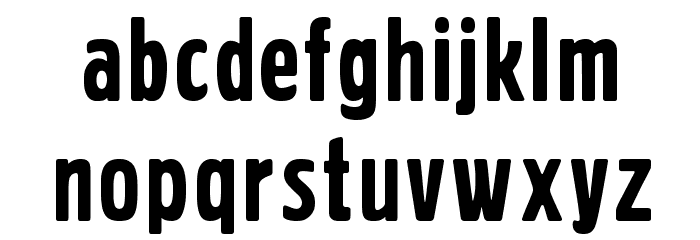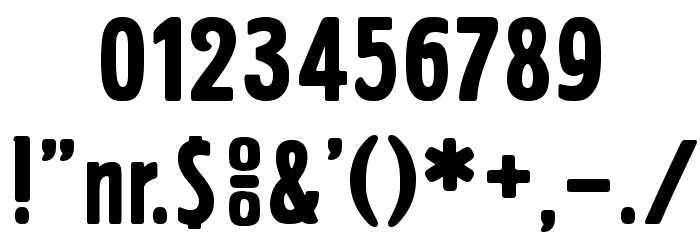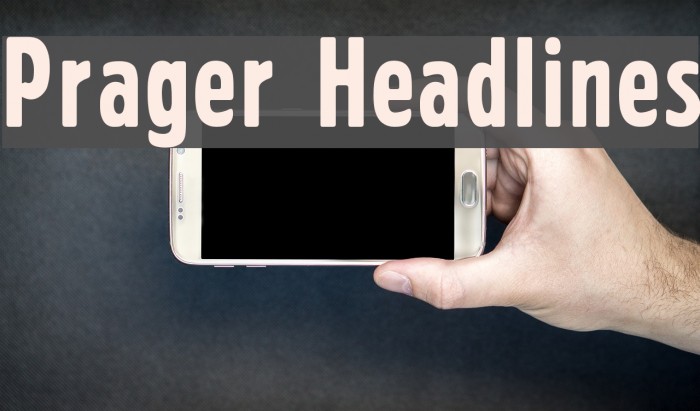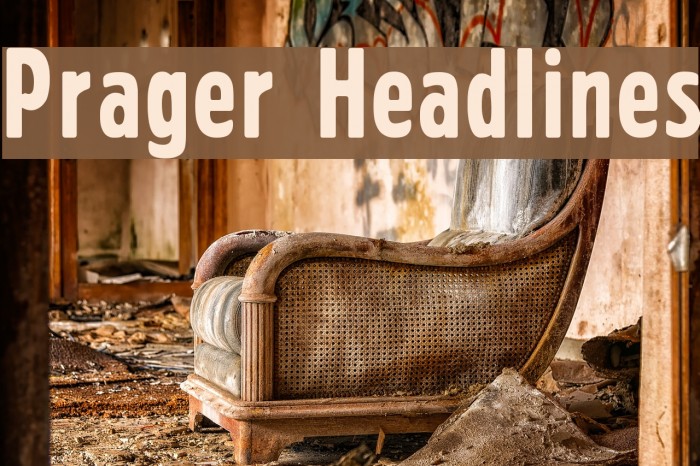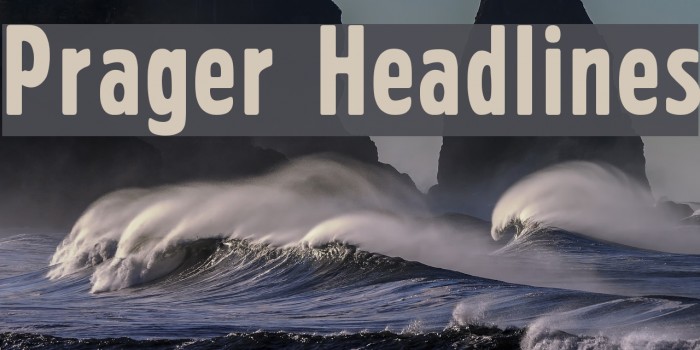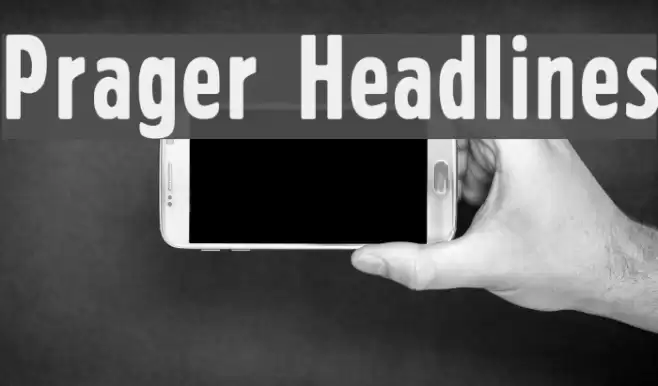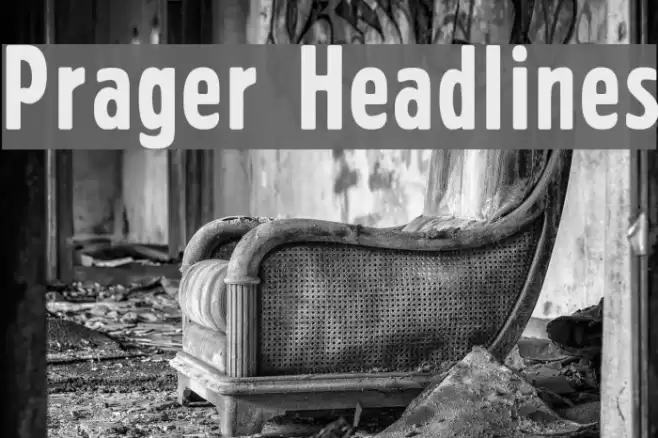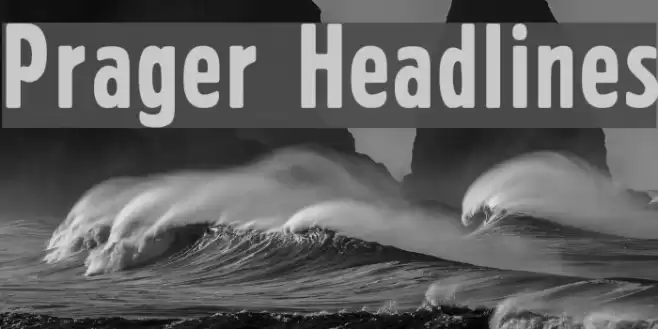
Prager Headlines Font
This typeface features bold, rounded characters with a strong presence, making it ideal for impactful headlines and attention-grabbing text. The uppercase letters are uniform in height, while the lowercase letters maintain a consistent style that complements the uppercase. The numerals are clear and legible, designed to stand out in any context. Special characters are included, offering versatility for various design needs. The overall design is modern and clean, with a slight vintage touch due to its rounded edges. This font is well-suited for digital and print media, providing clarity and emphasis in any setting.
Bold, rounded typeface ideal for impactful headlines.
- Proposed Projects: Perfect for branding, advertising, posters, and editorial design.